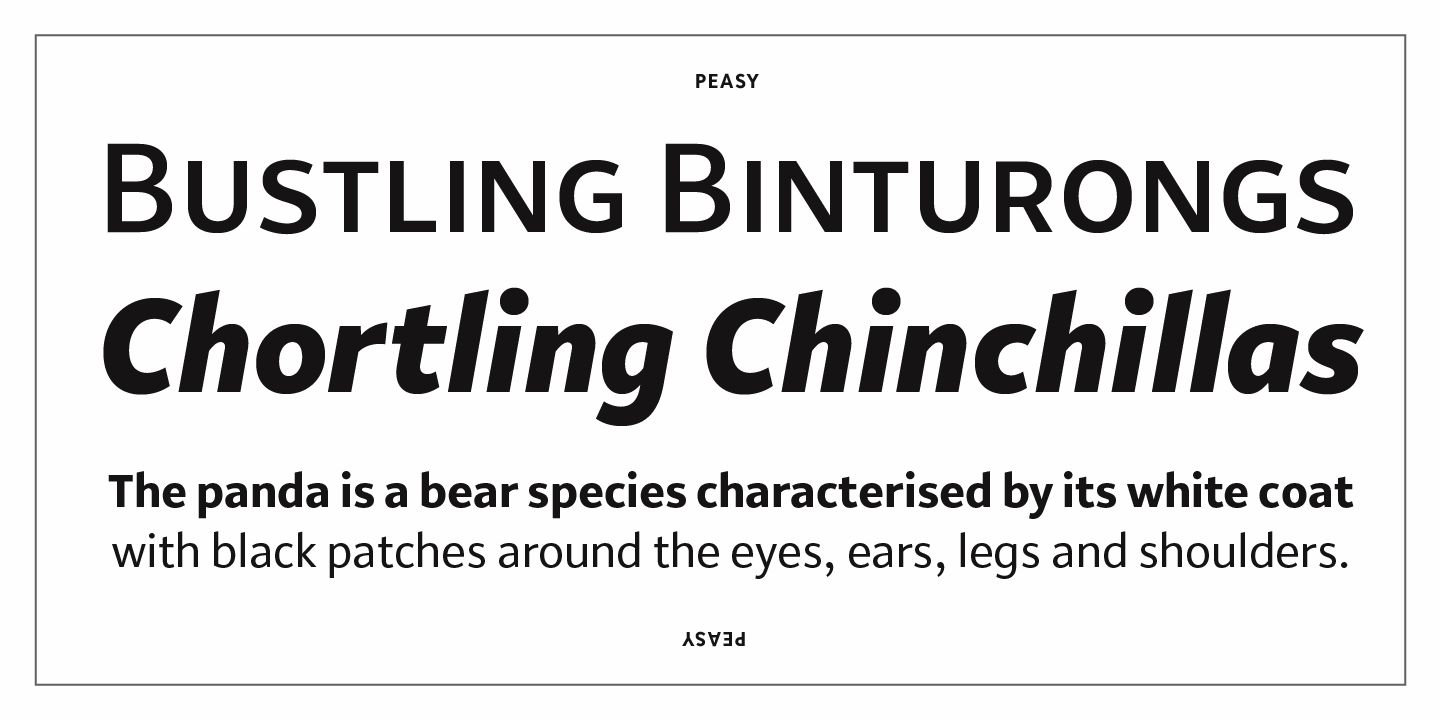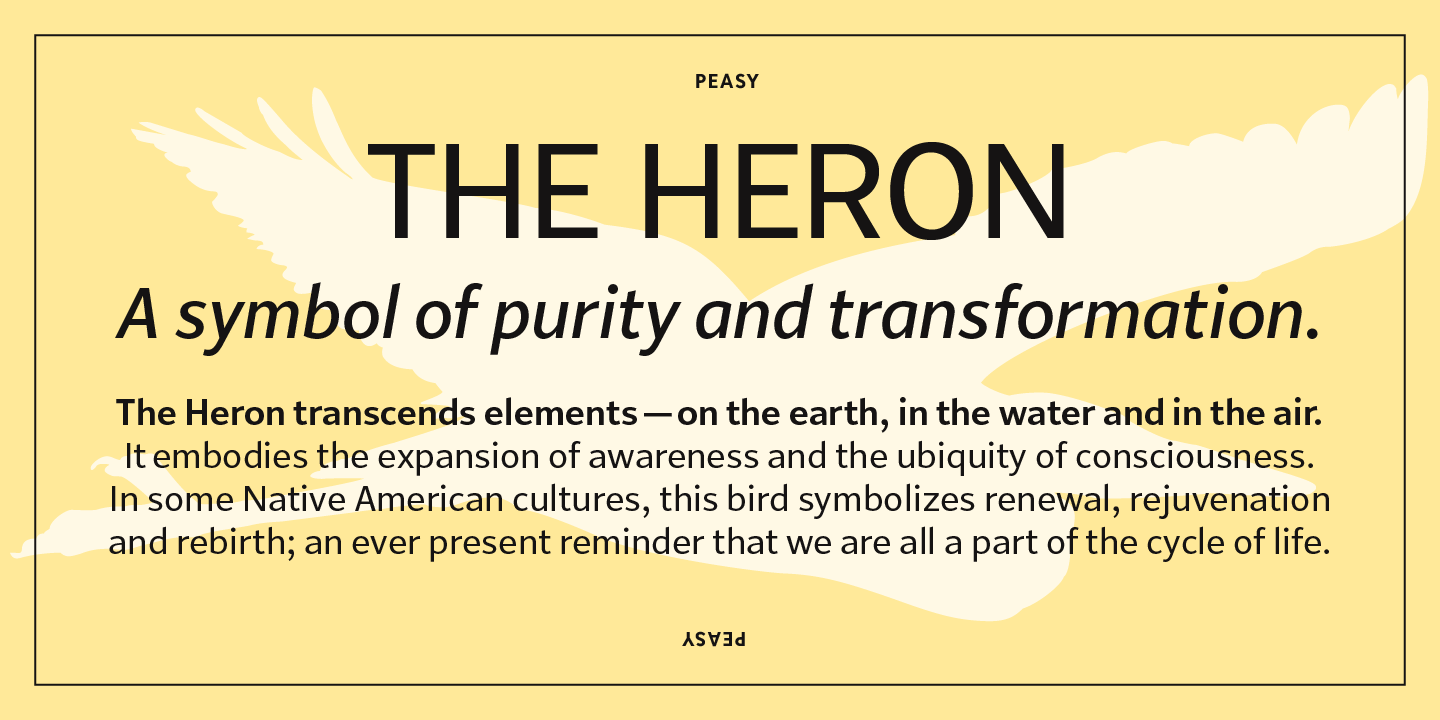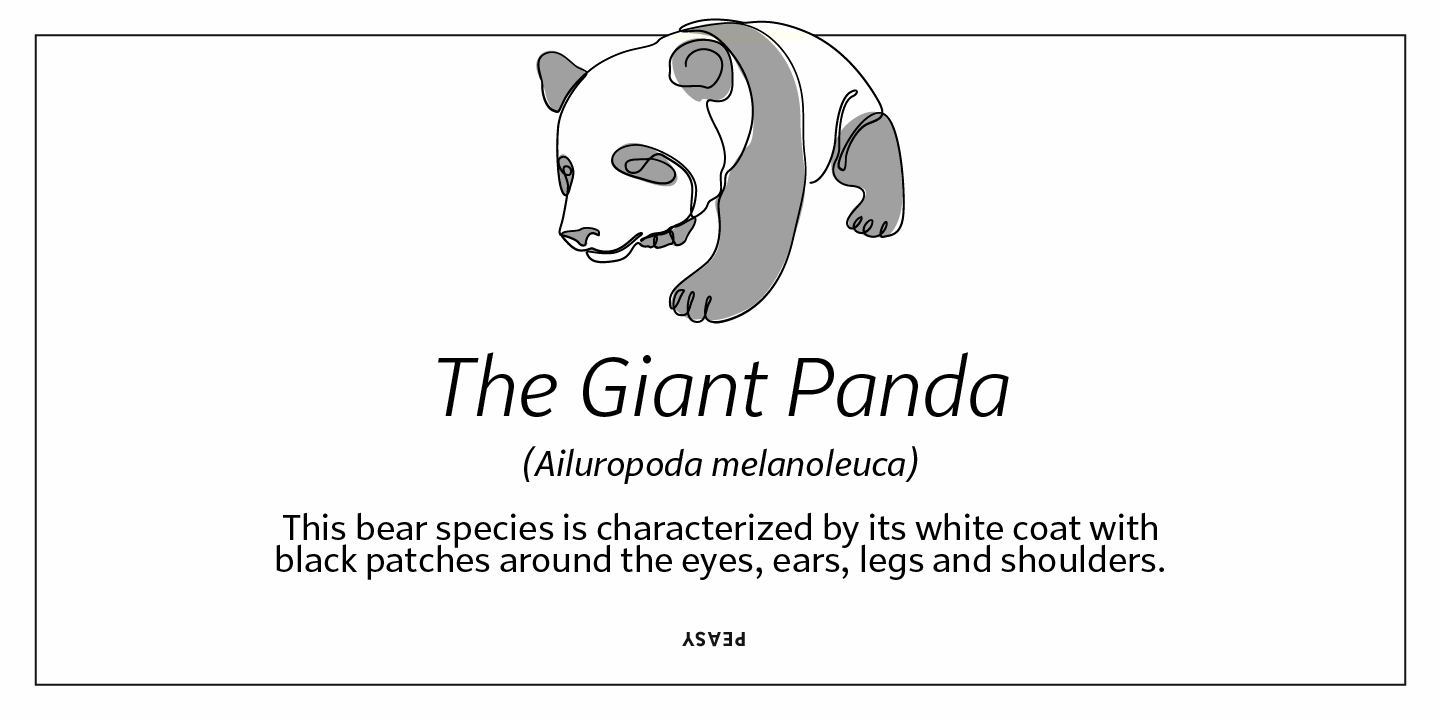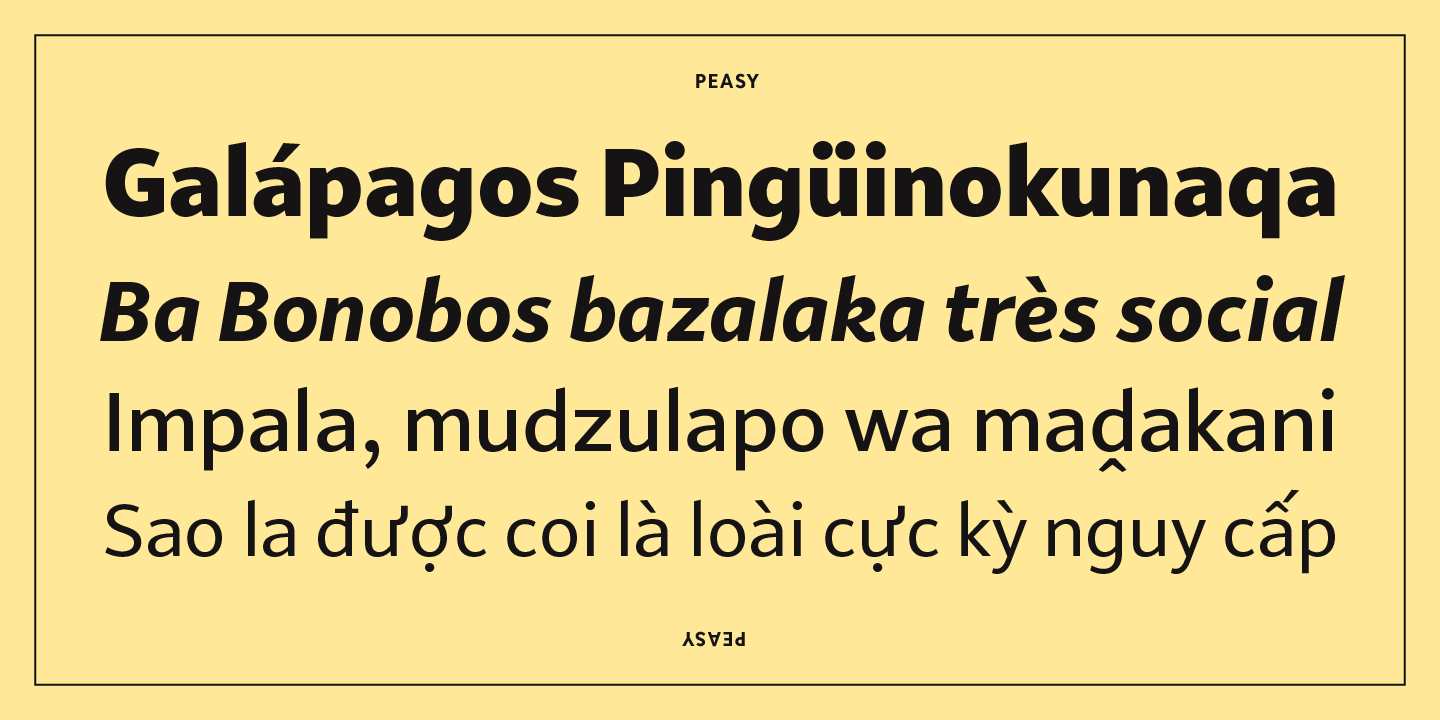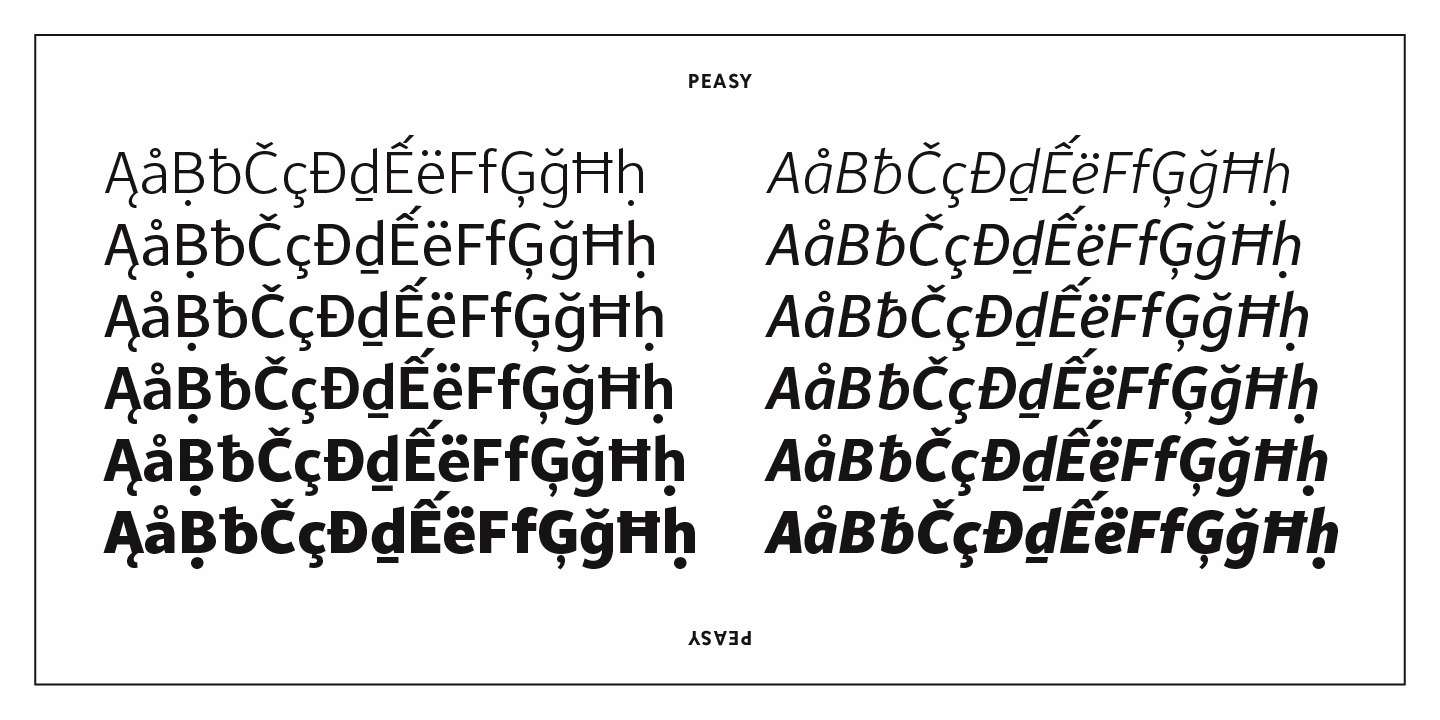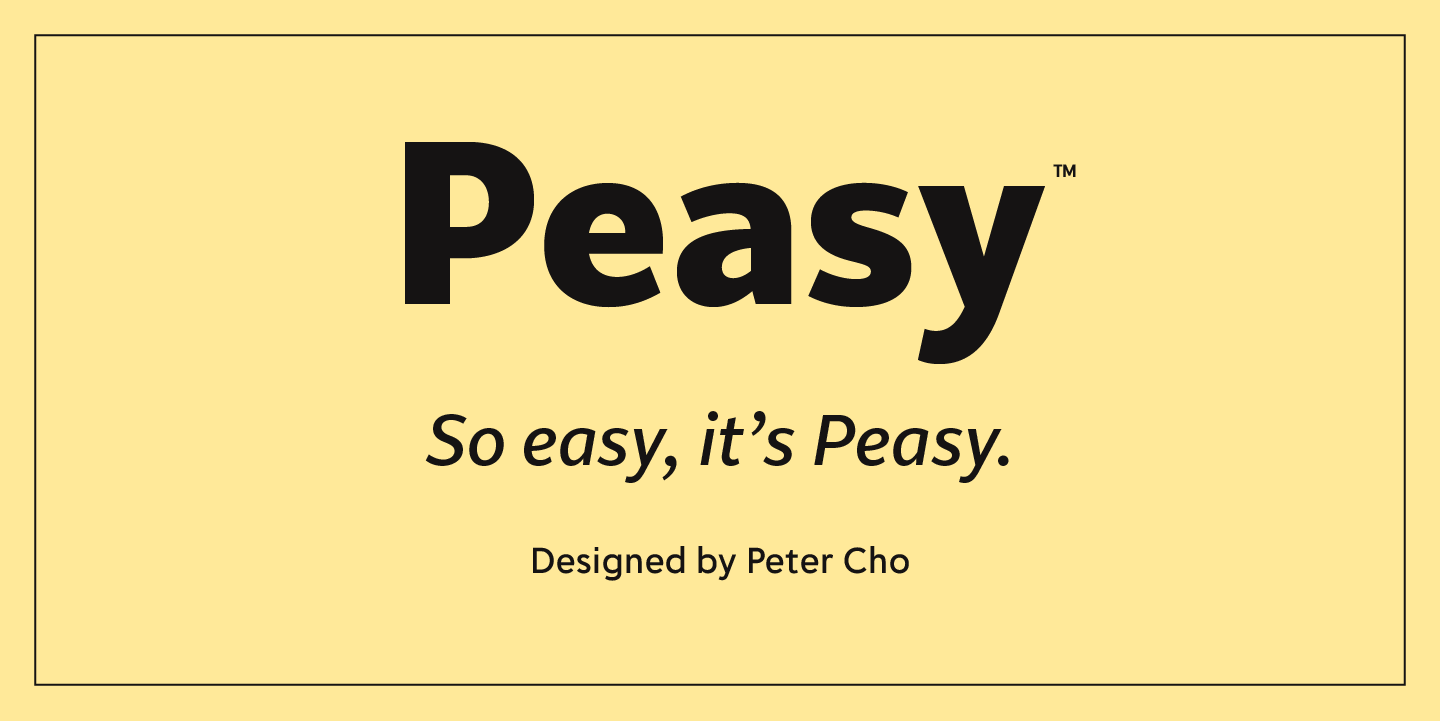
Peasy
About Peasy
Peasy is a friendly, neo-humanist sans serif typeface, designed for extended reading and medium-sized display settings. It is well balanced, low-contrast, and has a neutral but refreshing personality with a gestural, soft quality. Peasy has open…